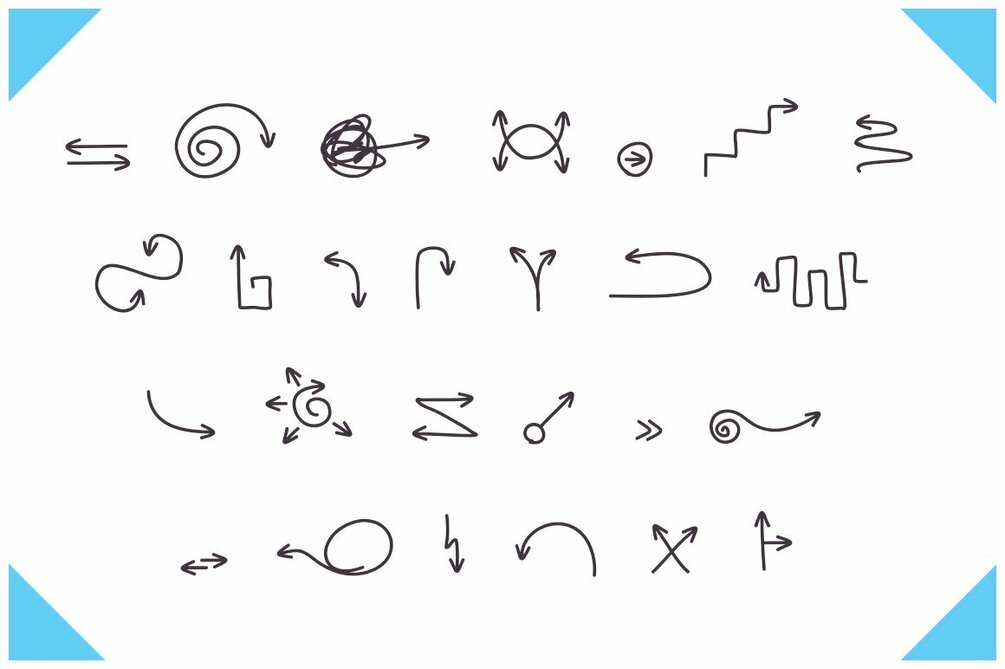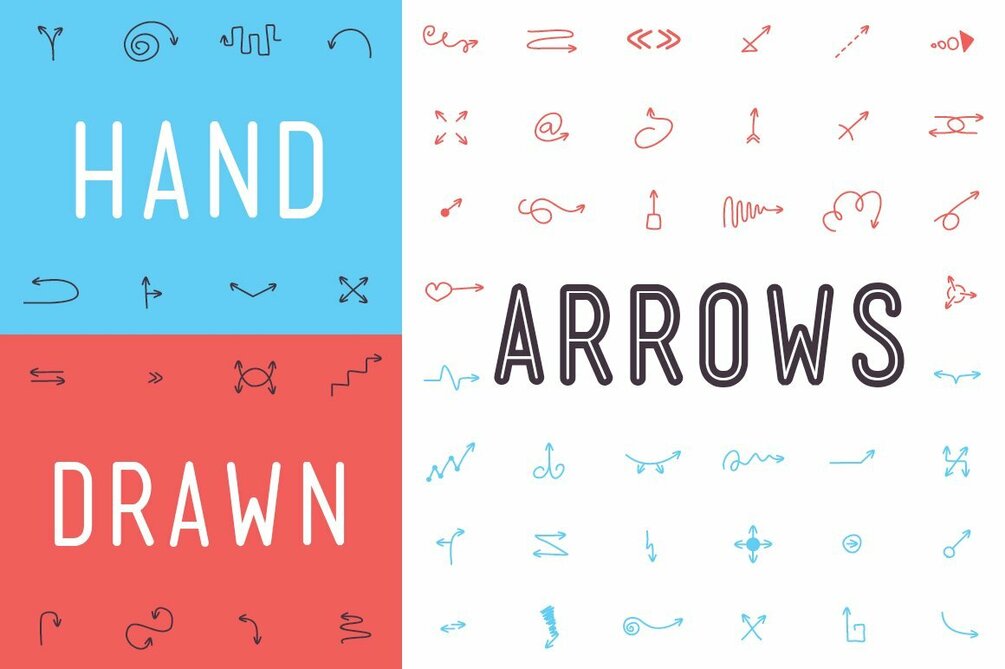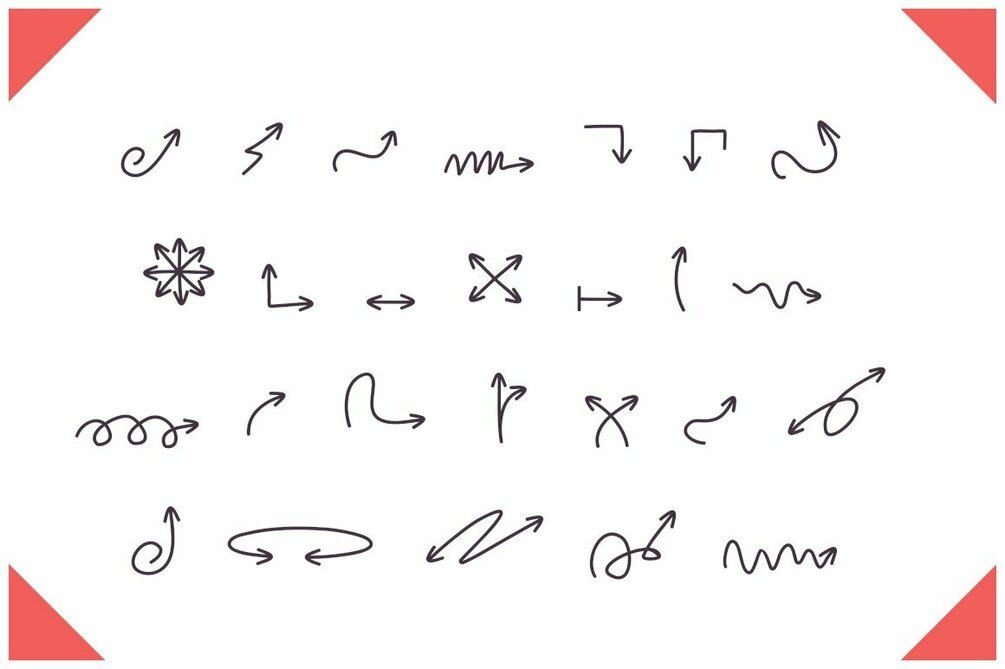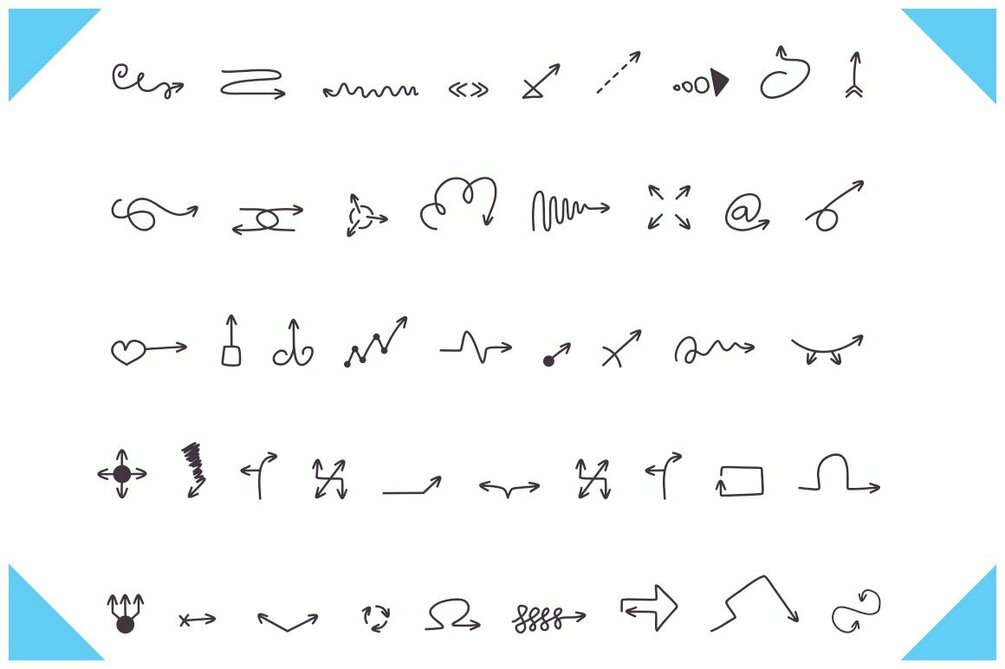
Hand Drawn Arrows Font
This is a .TTF format font with 98 unique hand drawn arrows that you can use in your designs.
Let's say you're working on a project and need a quirky arrow with a human touch. Instead of wasting your time making one from scratch, why not use this font? It's fast, easy, and simple.